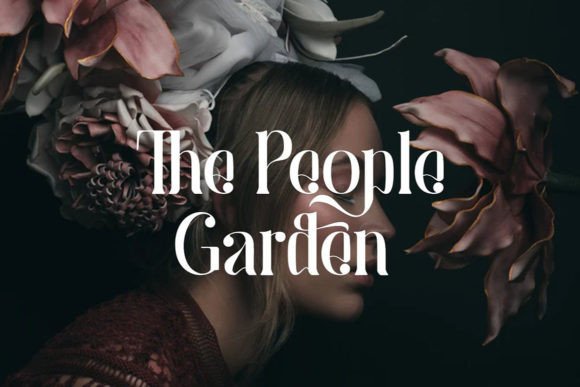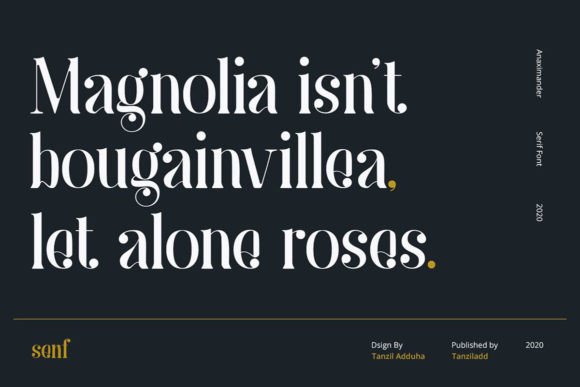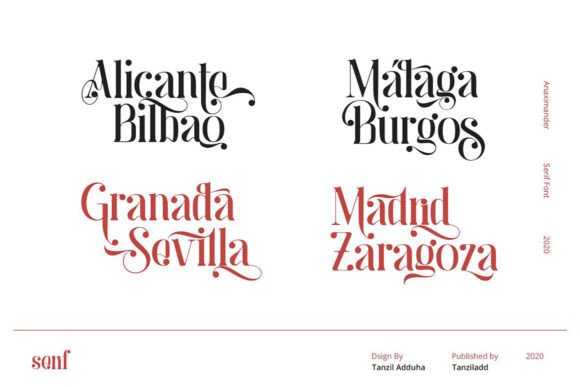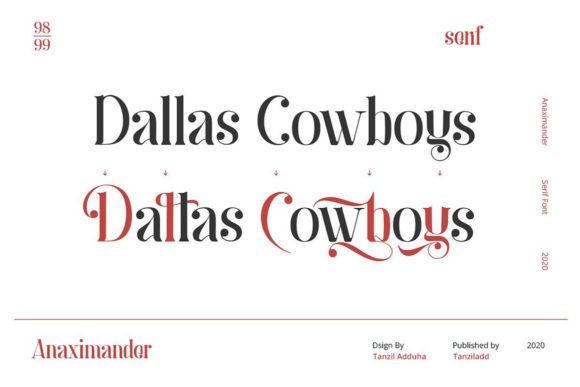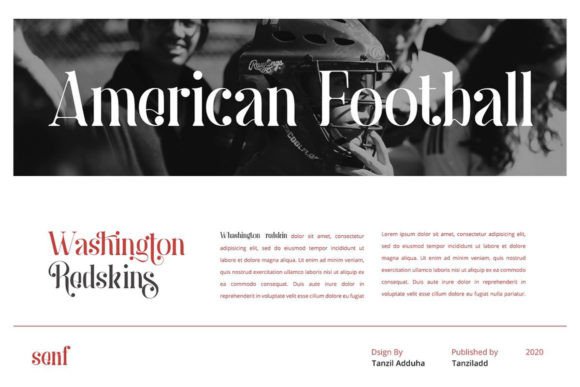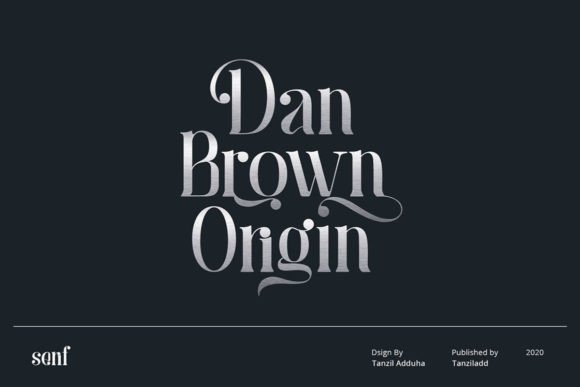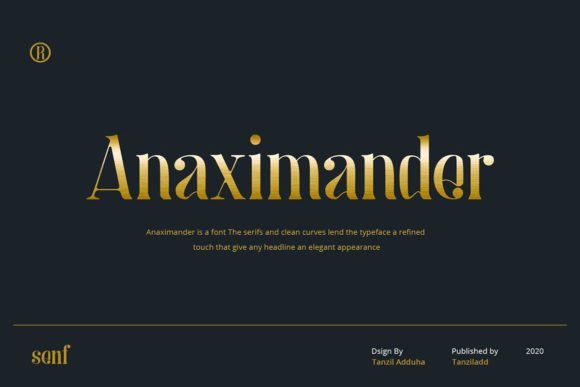
The Perfect Vintage Touch: Unlocking the Secrets of the Anaximander Font
Remember the moment when you stumbled upon the perfect font for your project? The one that brought all the elements together, elevating your design to a whole new level? For many designers, that moment is often associated with the Anaximander Font – a vintage serif font that exudes timeless elegance and sophistication.
Designed to add a touch of vintage charm to any design project, the Anaximander Font is a versatile and sophisticated choice that never goes out of style. Whether you’re working on a classic logo, a luxurious brochure, or a modern website, this font is sure to bring a sense of refinement and sophistication to your design.
For designers, the Anaximander Font is a valuable asset that can help take their projects to the next level. With its beautifully crafted curves and bold lines, it’s the perfect tool to add a vintage touch to any design.
Anaximander Font Key Features
- Font Family: Anaximander is a serif font family designed for use in various contexts, including body text and display headings.
- Unique Characteristics: The font features a unique blend of ancient and modern elements, with a strong emphasis on legibility and readability.
- Font Weight and Style: The font family includes a range of weights and styles, including Light, Regular, Medium, Bold, and Black, as well as Italic and Oblique versions.
Anaximander Font Review
Overall, I have mixed feelings about the Anaximander Font. Here’s a breakdown of what I like and dislike.
- ✨ Elegant and sophisticated design: The Anaximander Font has a classic, refined look that’s perfect for high-end branding, luxury goods, or sophisticated publications.
- ✨ Versatile: The font’s versatility makes it suitable for a wide range of applications, from body text to headings and titles.
- ✨ High-quality digital font: The Anaximander Font is well-crafted and optimized for digital use, ensuring a smooth and seamless experience.
- ⚠️ Limited language support: The Anaximander Font is primarily designed for English and may not support other languages, which could be a drawback for global branding or multilingual publications.
- ⚠️ Limited font sizes: The font’s design may not be ideal for very small or very large font sizes, which could compromise readability.
- ⚠️ Overly formal: The font’s classic design may make it feel too formal or stiff for certain applications, such as creative or playful branding.
The Anaximander Font is a solid choice for high-end branding and sophisticated applications, but its limitations may make it less suitable for other uses. If you’re looking for a classic, elegant font with high-quality digital performance, the Anaximander Font is worth considering. However, be aware of its limitations and carefully evaluate whether it’s the right fit for your project.
Tips: Use Anaximander Font for headings and titles to add a touch of elegance to your design. Experiment with different font sizes and colors to achieve the desired visual effect.
Tips: Use Anaximander Font for typography-heavy designs, such as posters or brochures. Experiment with layer styles and effects to add depth and dimension to your design.
Tips: Use Anaximander Font for presentations and documents that require a professional and sophisticated look. Experiment with different font sizes and colors to create visual hierarchy and emphasis.
Anaximander Font is ideal for:
- Designing luxury branding materials, such as logos and business cards.